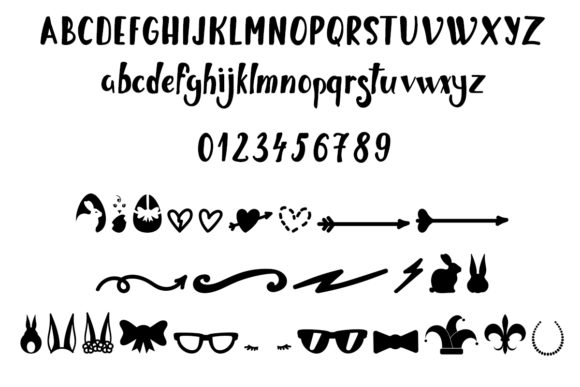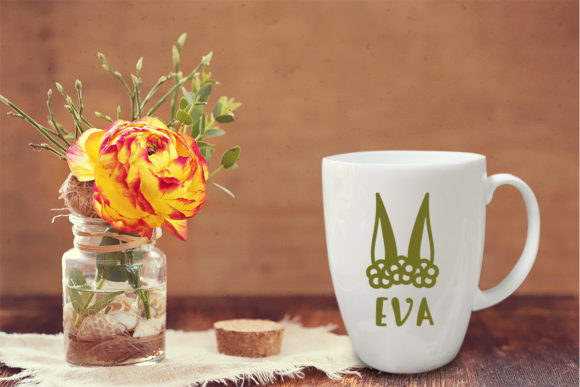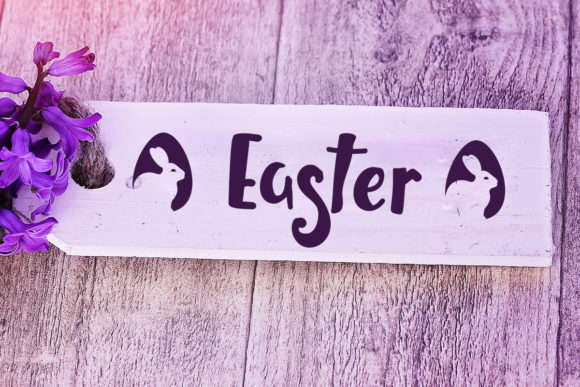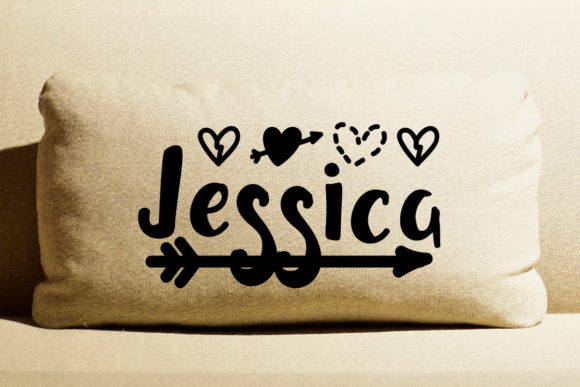
Crazy Pug Font
About Crazy Pug Font
The Crazy Pug is a handwritten font that is friendly, playful, cute and simple. It comes with 26 simple graphics for Valentine, Mardi Gras and Easter.